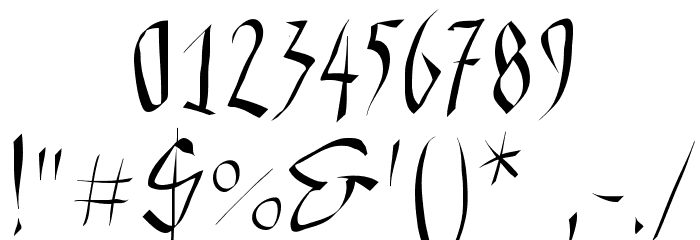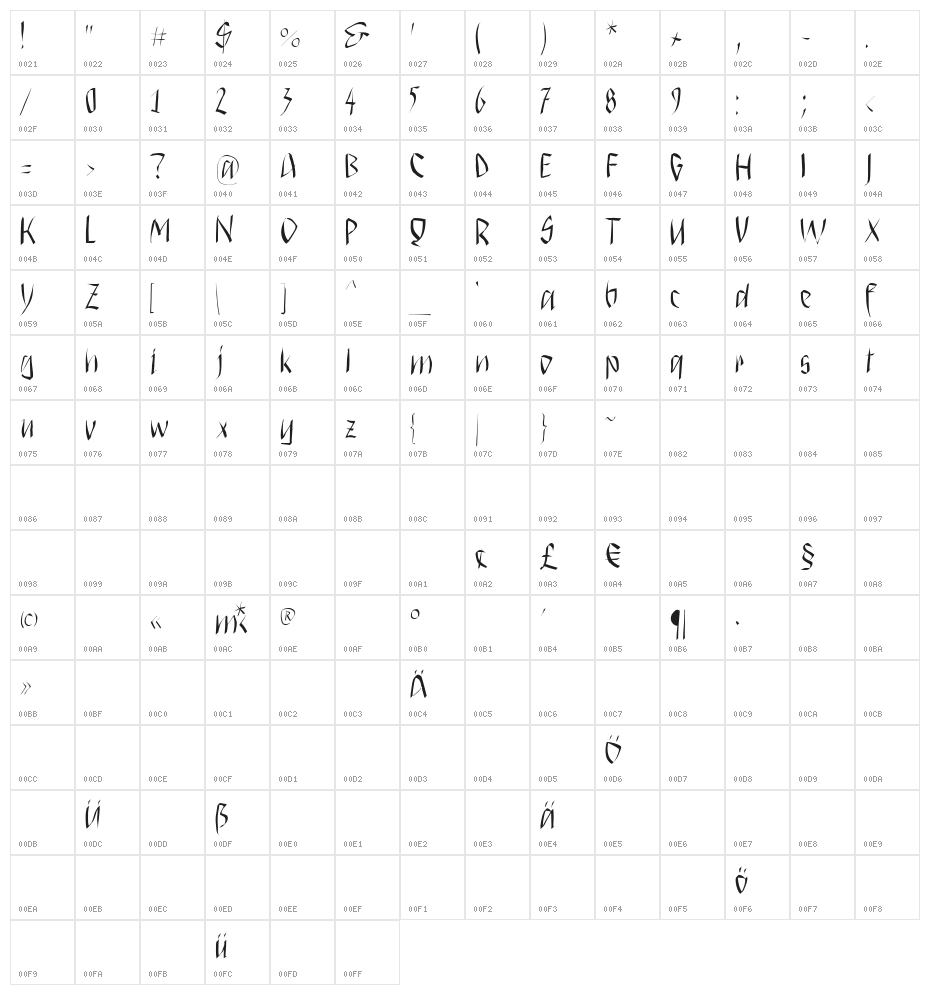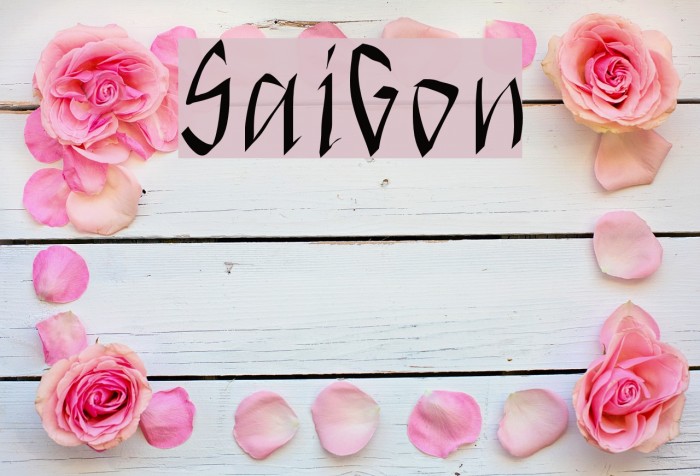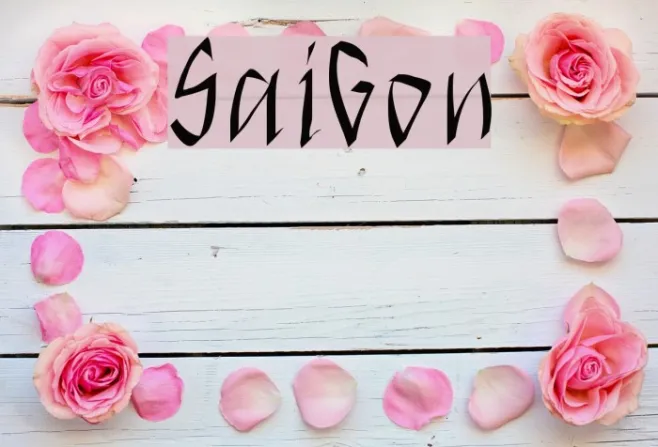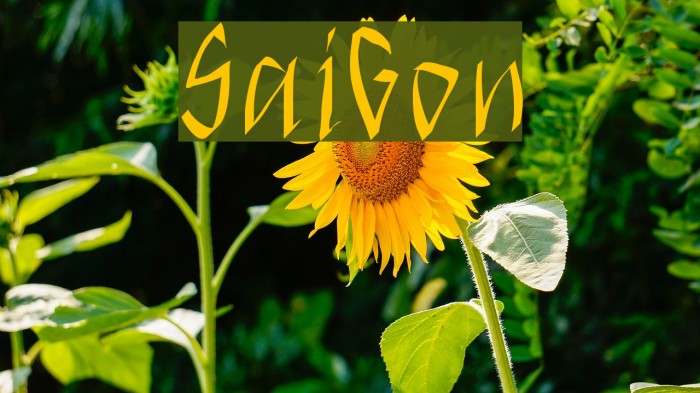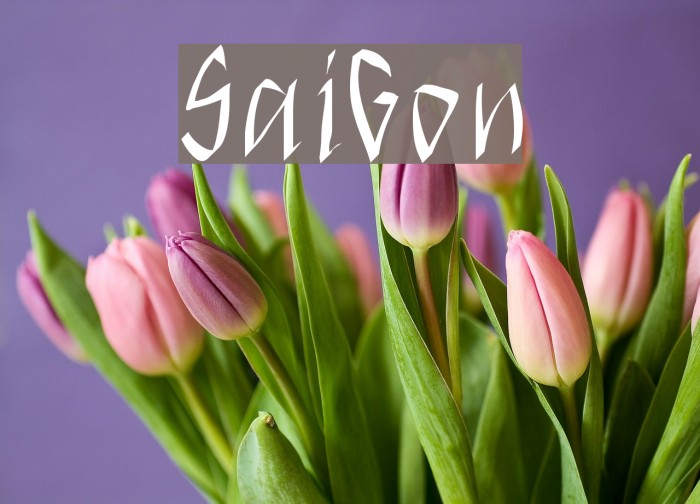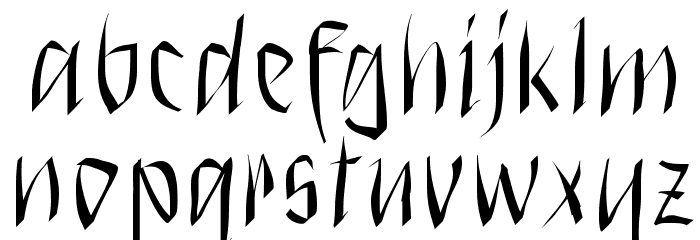
SaiGon Font
SaiGon Description
This font features a dynamic and expressive style with sharp, angular lines and a calligraphic influence. The uppercase letters are bold and striking, with a distinct flair that gives them a sense of movement and energy. The lowercase letters maintain the same angular aesthetic, providing a cohesive look across the alphabet. The numerals are uniquely styled, matching the overall theme with their sharp edges and fluid curves. Special characters are crafted with the same attention to detail, ensuring they blend seamlessly with the rest of the font. This font's high contrast between thick and thin strokes adds to its dramatic appearance, making it ideal for eye-catching designs.